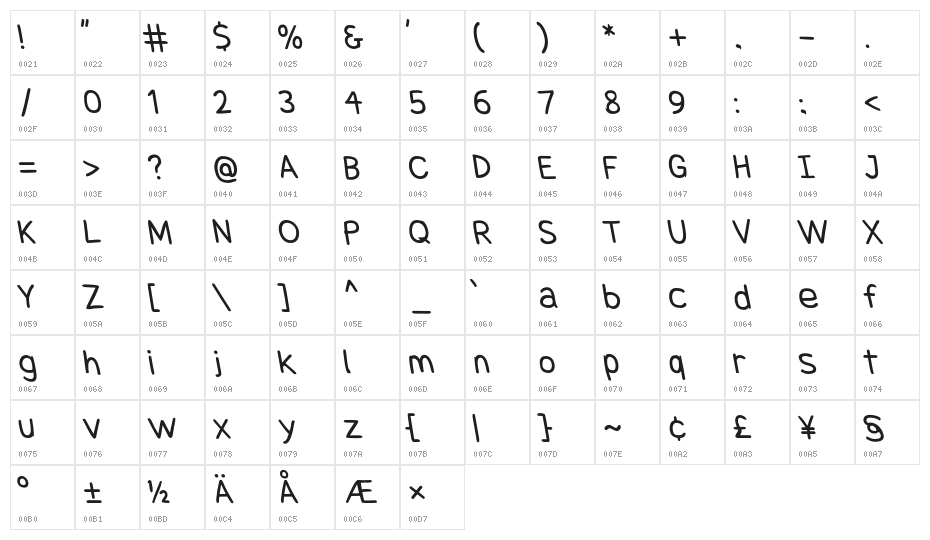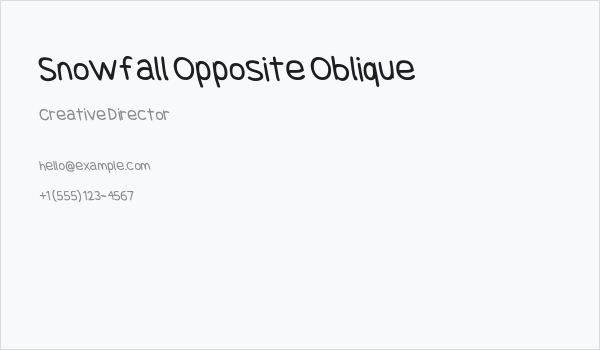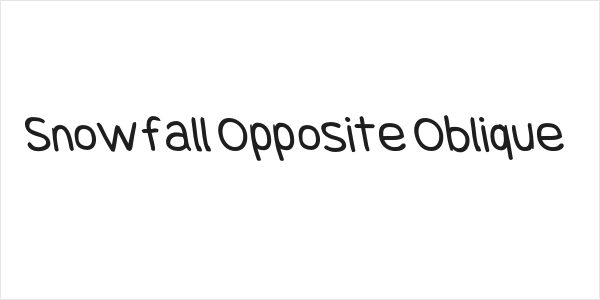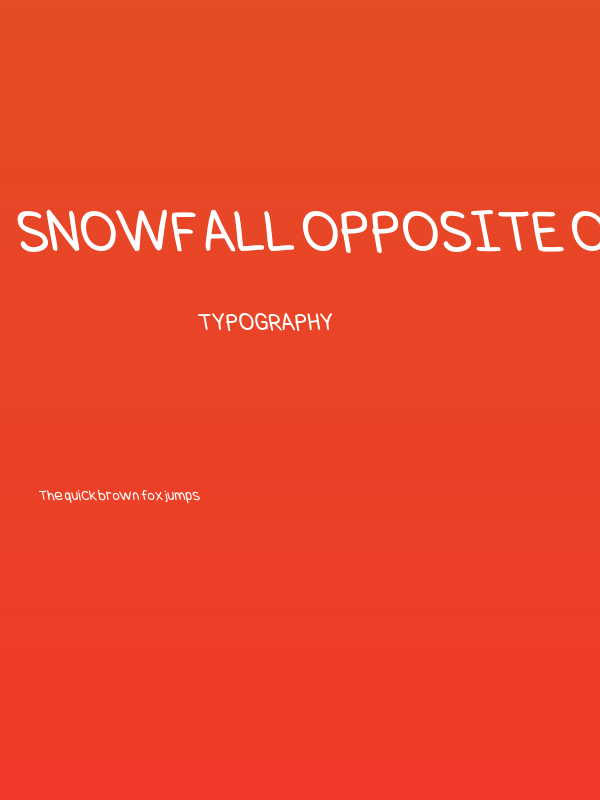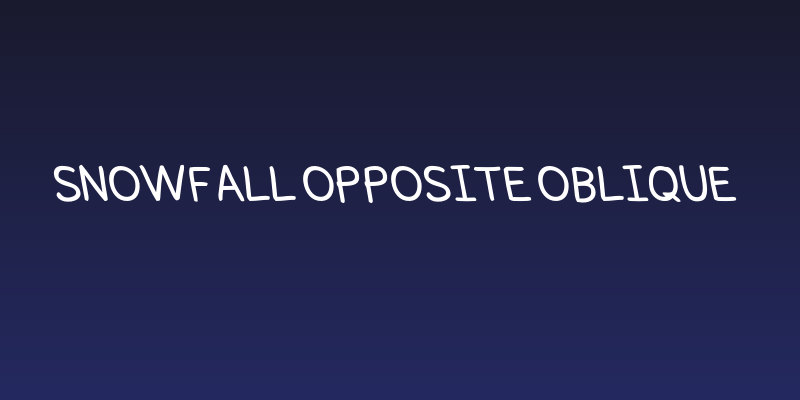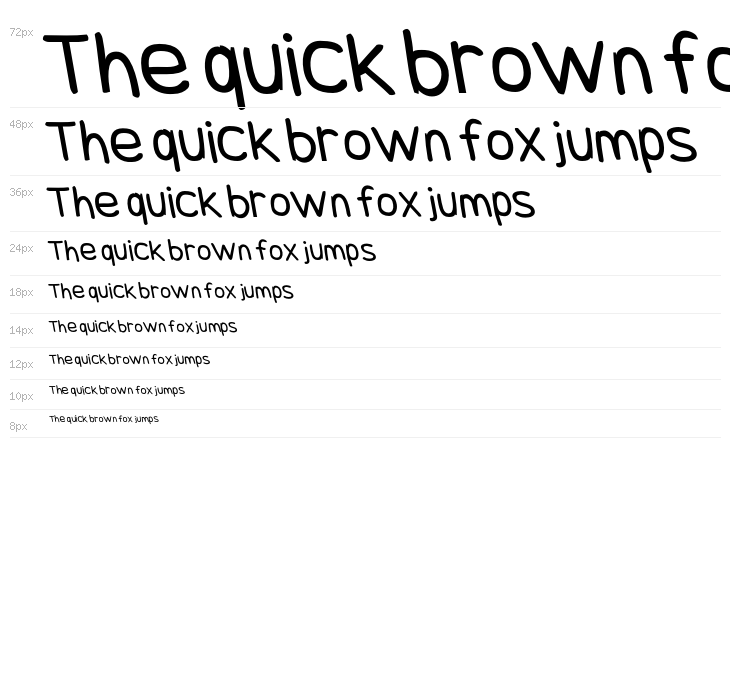
Snowfall Opposite Oblique Font
Snowfall Opposite Oblique Description
This playful and informal font features a handwritten style with a slight slant, giving it a casual and friendly appearance. The characters are rounded and smooth, with consistent stroke widths that maintain a uniform look throughout. The uppercase and lowercase letters are well-balanced, and the numerals are clear and easy to read. Special characters are included, adding versatility for various uses. The overall design is approachable and modern, making it suitable for projects that require a personal touch.
| Proposed Projects | Ideal for children's books, greeting cards, informal invitations, and creative branding projects. |